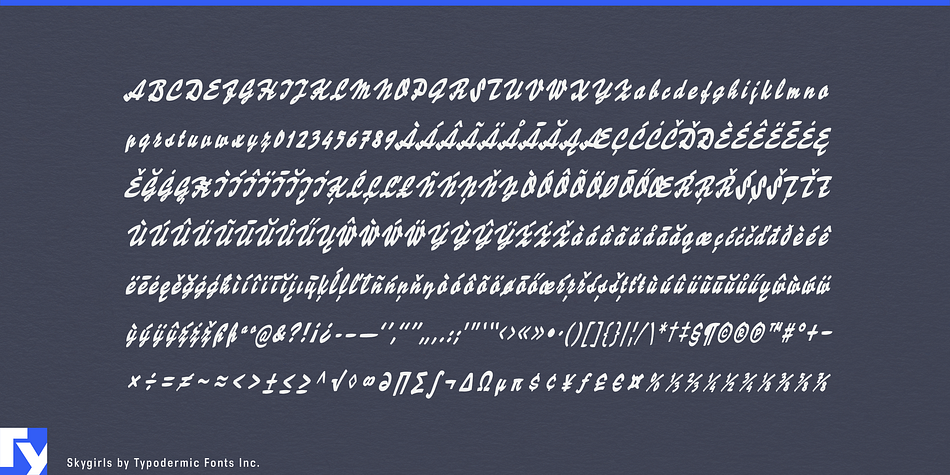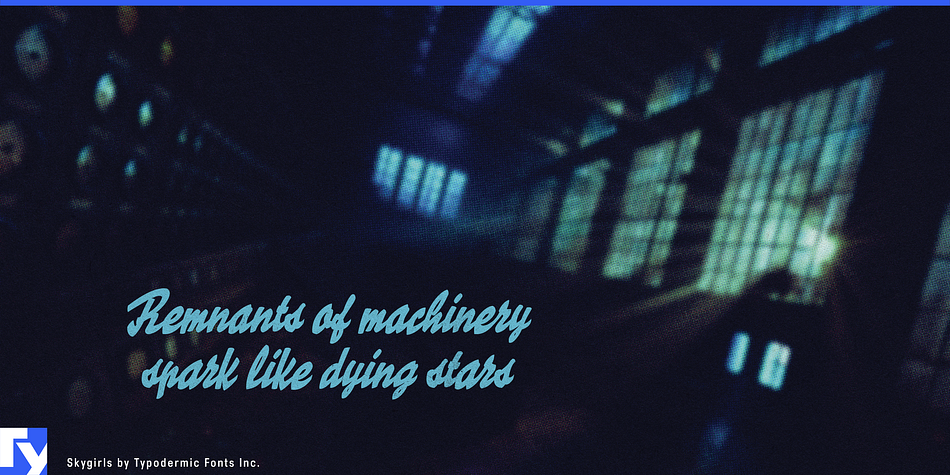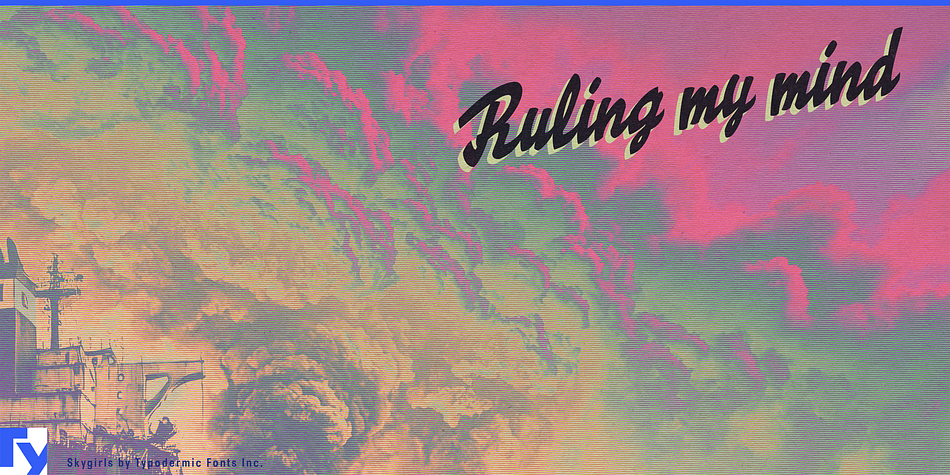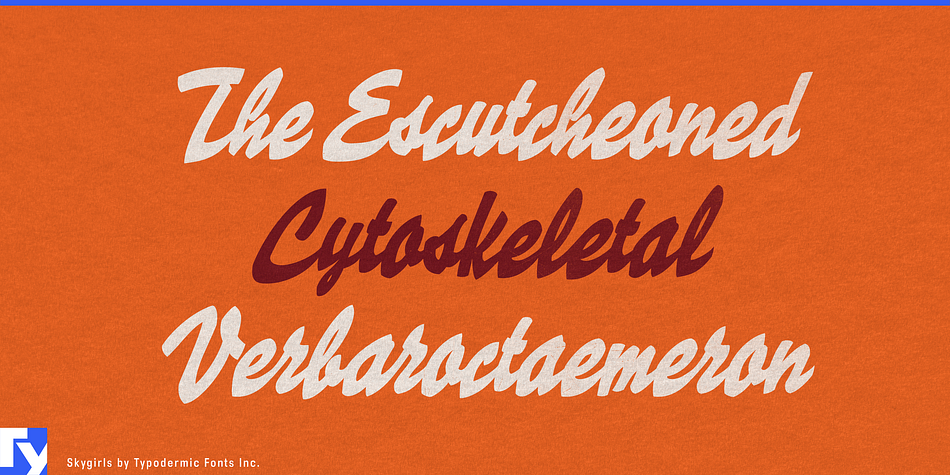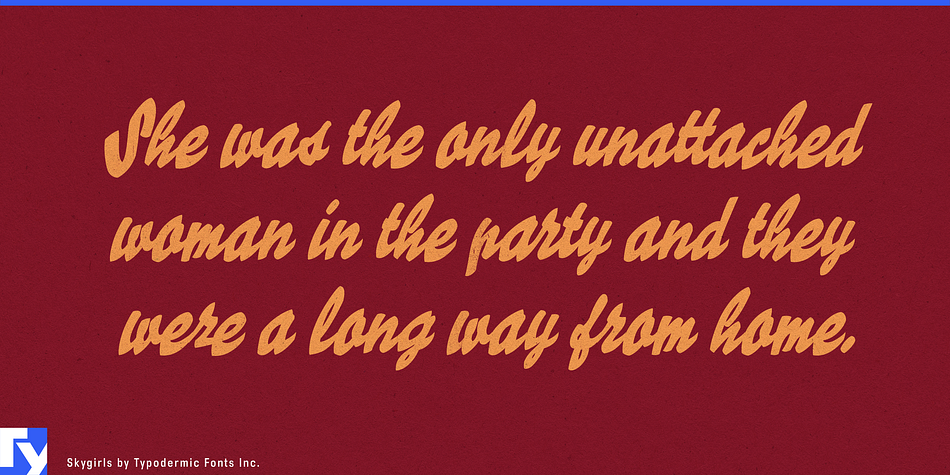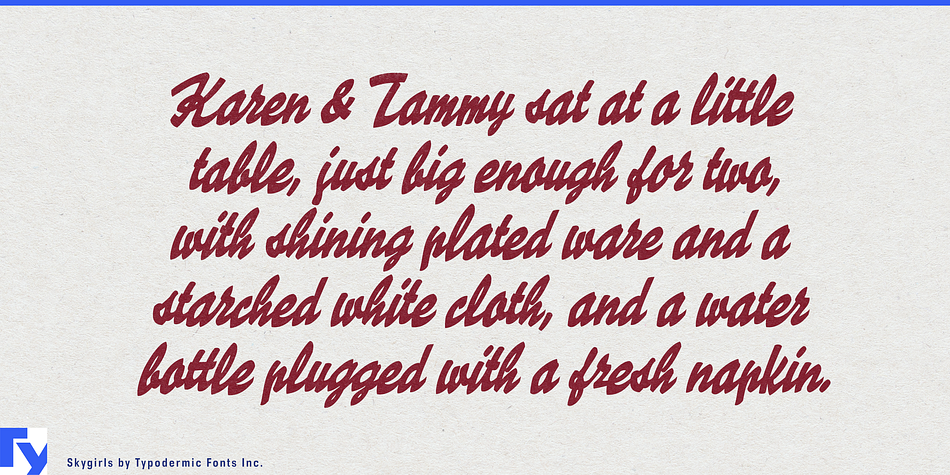
Skygirls is a brush script font published by Typodermic Fonts Inc.
Skygirls captures the feeling of early to mid 1900’s hand painted advertising script. Skygirl was inspired by ideas from several old metal scripts: Herald, Signal, Hauser, Penflow, Veltro, Kurier & Bison.